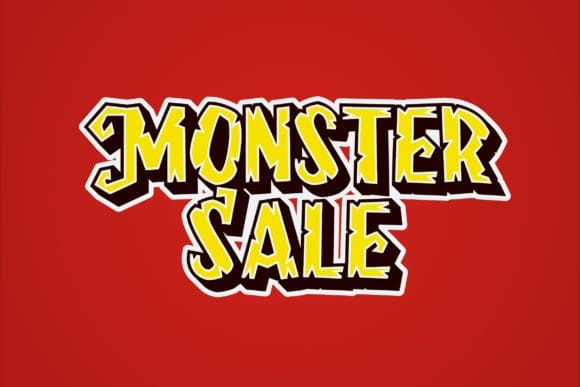
Frightening Display Font
Frightening Display Font is a bold, playful display font designed specifically for Halloween themes. The characters are thick and exaggerated, with sharp edges and irregular forms that give them a spooky, yet whimsical feel. Each letter features jagged strokes and curling elements, reminiscent of classic horror movie fonts, while maintaining a fun, cartoonish aesthetic. The font is layered, allowing for different color combinations and shadow effects, which adds depth and a sense of dimension. This makes it perfect for Halloween decorations, posters, or titles that need a festive, eerie vibe while still being approachable and playful.